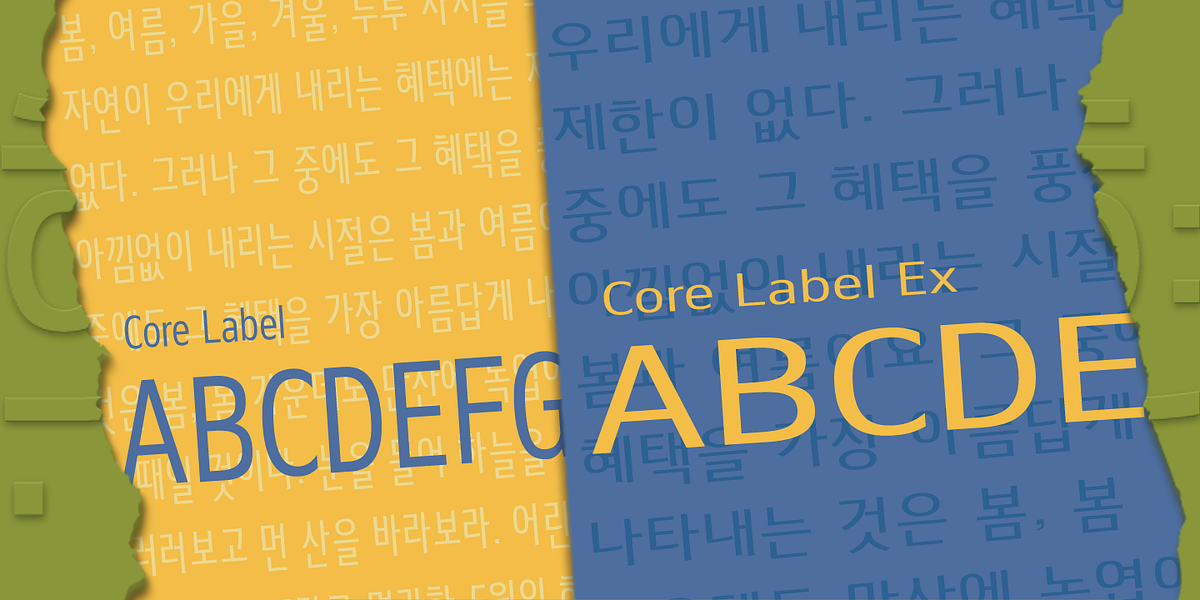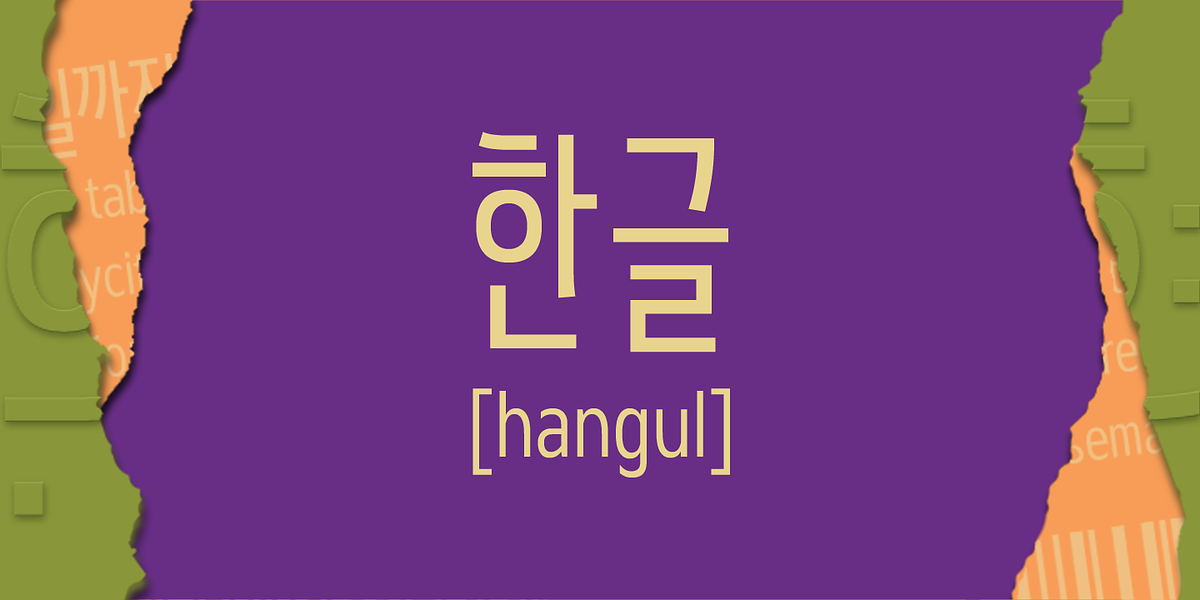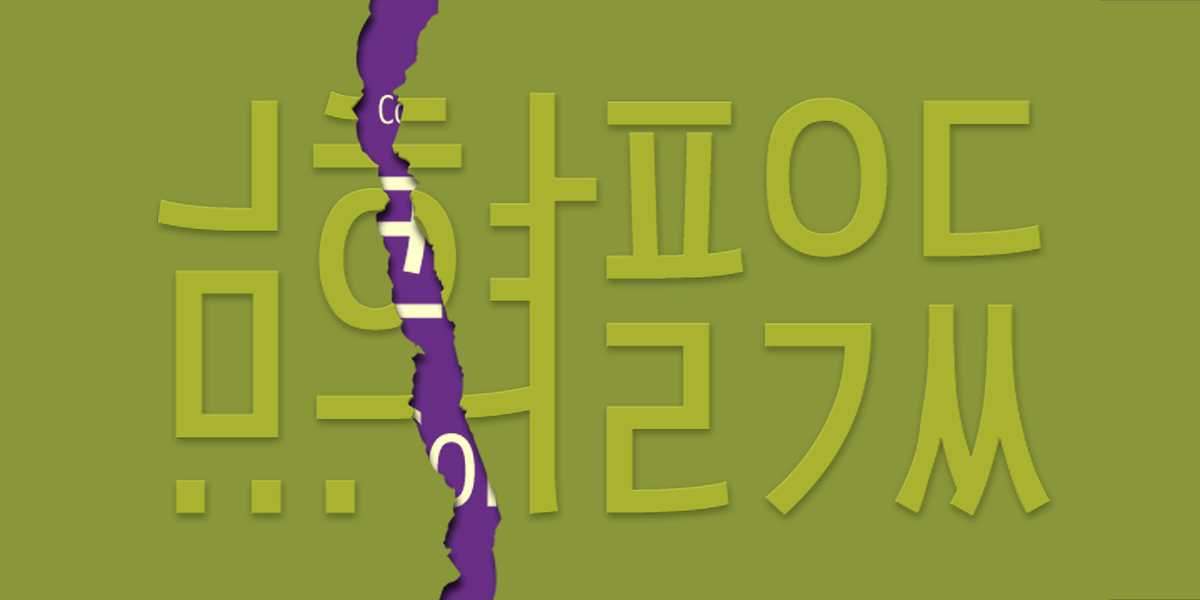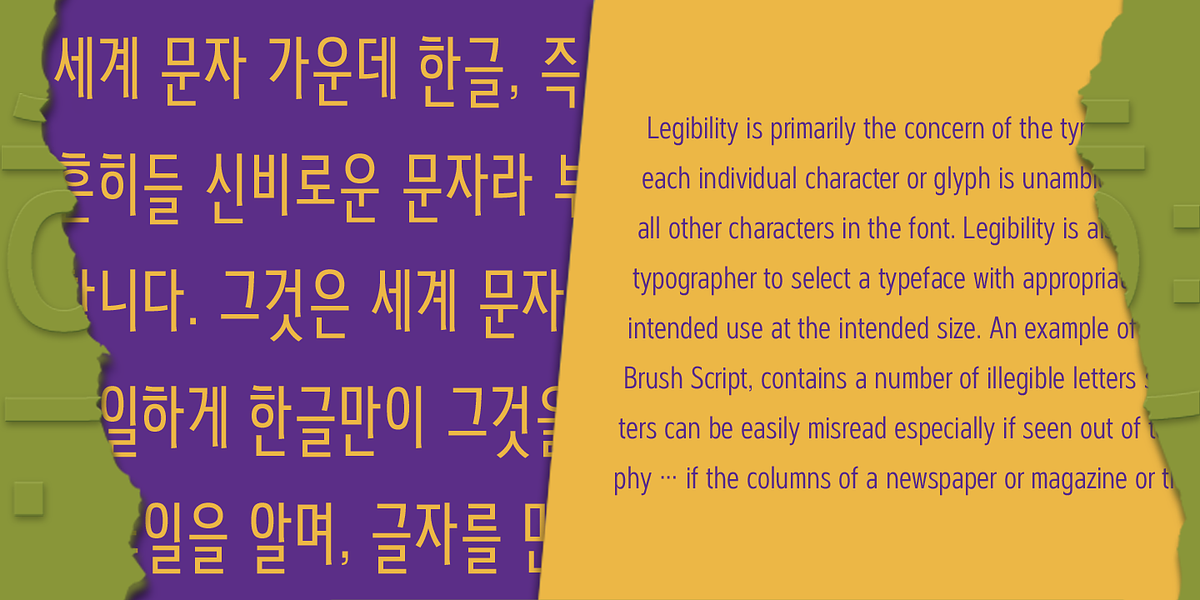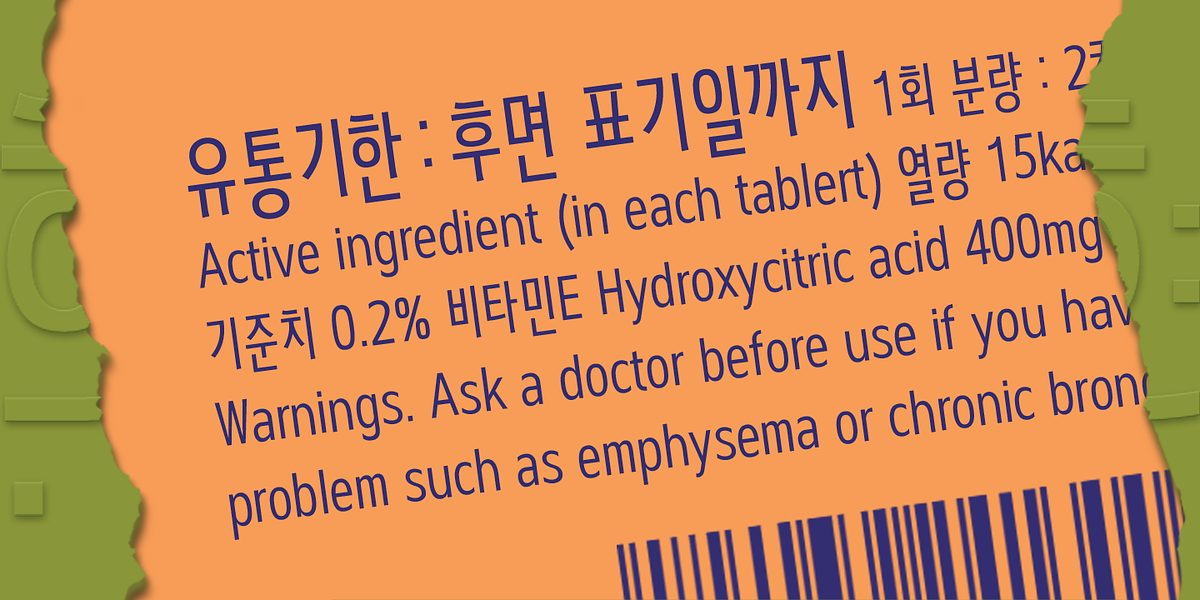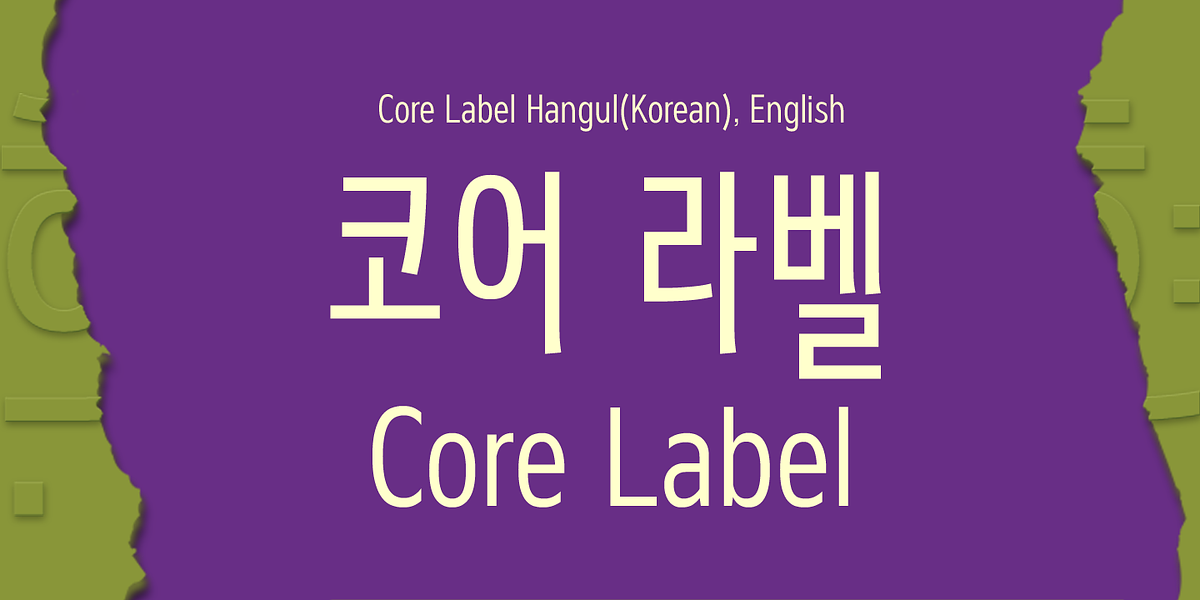
Core Label
Core Label is a neo-grotesque sans serif font designed for readability in condensed sizes. It's particularly well-suited for applications like labels and book text where space is limited. The font supports both Latin1 and Korean character sets.